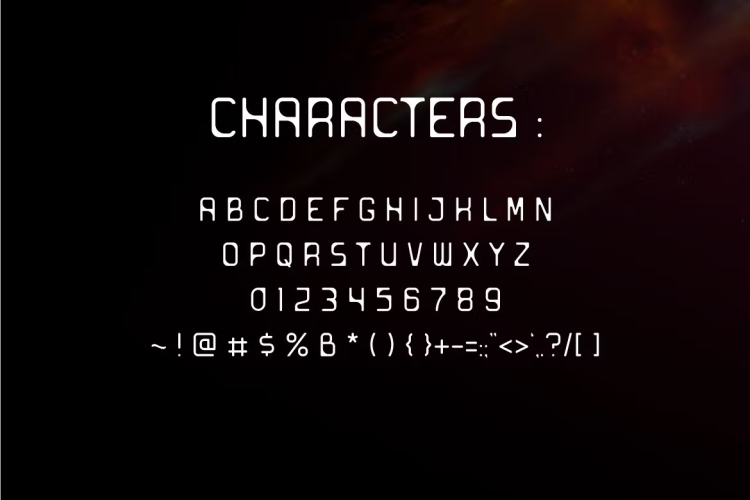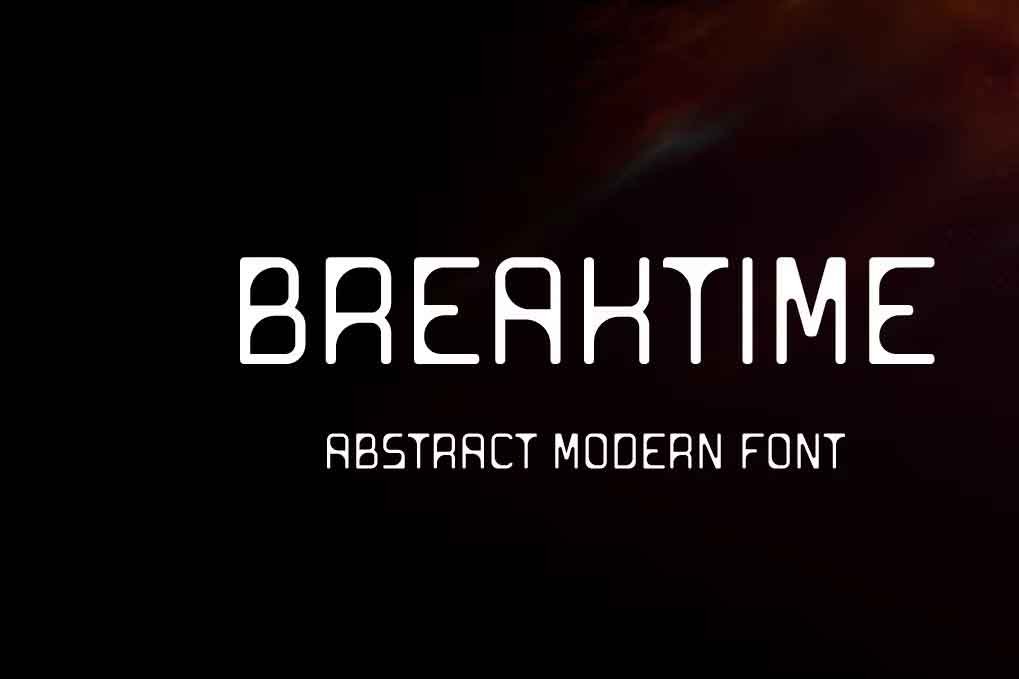
Breaktime Font
If you are looking for a abstract but modern font, meet BREAKTIME Breaktime is perfect for any works, such as card, book title, headline of news, banner, flyer, stationery and many more. It also can be used in large-scale work.
Breaktime Font keeps its shape at 14 and 16 pixels, which is where interface text actually lives. Numbers and capitals stay distinguishable in tables.
Presentations are read at a distance; a clean sans with a strong bold is the safest hierarchy you can build in a hurry.
Simple letterforms survive angles, glare and movement, so Breaktime Font suits door signs, menus boards and exhibition panels.
It sits in the Sans Serif Fonts group and reads as modern, professional, sans serif, sans serif fonts. That makes it a candidate wherever those qualities help: headings, packaging, social graphics and brand work. Set it at the size you plan to use before deciding.